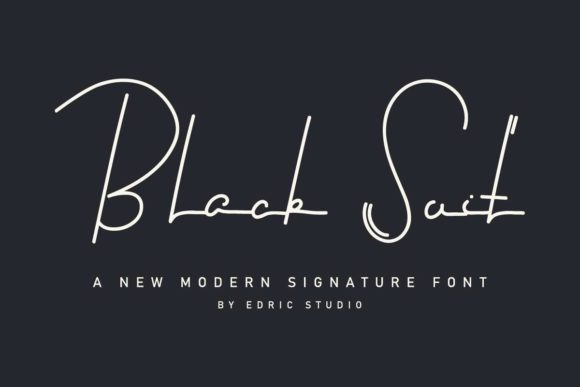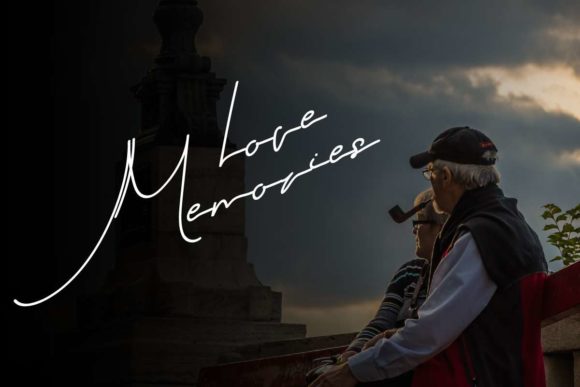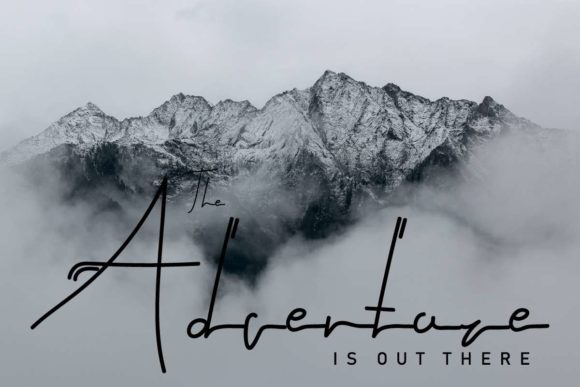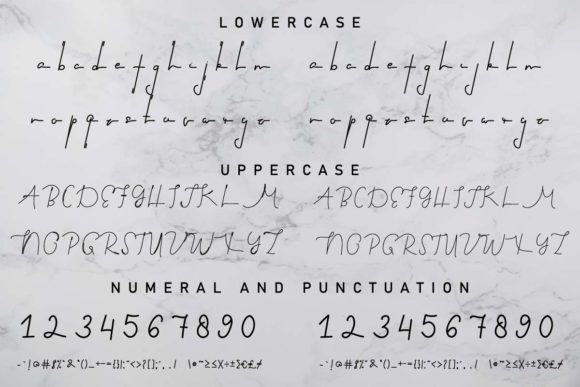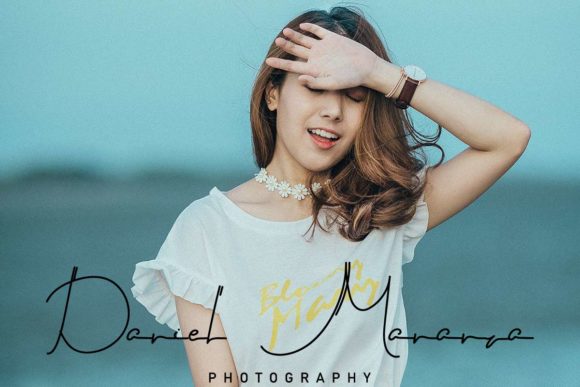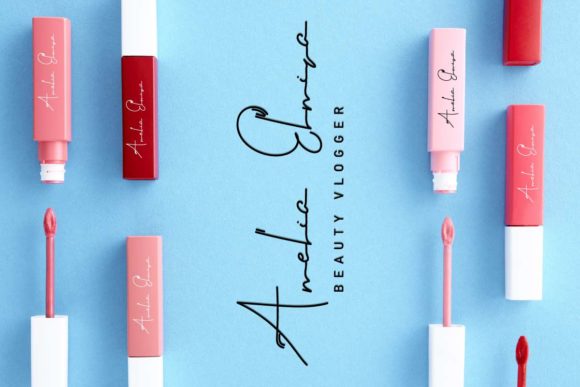
Introducing Black Suit Font: The Epitome of Elegance and Charm
Are you on the hunt for a font that exudes sophistication, elegance, and a touch of classic charm? Look no further than the Black Suit Font. This stunning handwritten font is a stylish homage to traditional calligraphy, making it perfect for designers and crafters seeking to add a touch of luxury to their projects.
The Characteristics of Black Suit Font
Black Suit Font feels equally charming and elegant, thanks to its unique characteristics. Some of the key features that set this font apart include:
- Varying Baseline: The font features a subtle variation in baseline, giving it a natural, handwritten feel that’s both organic and visually appealing.
- Smooth Lines: The lines in Black Suit Font are smooth and fluid, creating a sense of continuity and flow that’s perfect for creating elegant text-based designs.
- Gorgeous Glyphs: The font boasts an impressive array of gorgeous glyphs, each one carefully crafted to add a touch of sophistication to your designs.
- Stunning Alternates: Black Suit Font also features stunning alternates, allowing you to add a touch of personality and whimsy to your text.
What Makes Black Suit Font So Versatile?
One of the things that sets Black Suit Font apart from other fonts is its incredible versatility. Whether you’re working on a wedding invitation, a branding project, or a packaging design, this font is sure to impress. Its elegant, refined aesthetic makes it perfect for:
- Wedding and Event Stationery: Create beautiful wedding invitations, save-the-dates, and other event stationery with Black Suit Font.
- Branding and Packaging: Use the font to create elegant branding materials, such as business cards, letterheads, and packaging designs.
- Signage and Displays: Black Suit Font is also perfect for creating eye-catching signage and displays, whether you’re working on a retail display or a restaurant menu.
Why Designers and Crafters Love Black Suit Font
So, why do designers and crafters love Black Suit Font? Here are just a few reasons:
- Ease of Use: The font is incredibly easy to use, even for those with limited design experience.
- Customization Options: With its stunning alternates and gorgeous glyphs, Black Suit Font offers a range of customization options to help you create unique designs.
Tips for Getting the Most Out of Black Suit Font
To get the most out of Black Suit Font, here are a few tips to keep in mind:
- Experiment with Different Sizes: Don’t be afraid to experiment with different font sizes to create visual interest and hierarchy in your designs.
- Play with Alternates: Take advantage of the font’s stunning alternates to add personality and whimsy to your text.
- Pair with Other Fonts: Black Suit Font pairs beautifully with other fonts, so don’t be afraid to experiment with different combinations to create unique and interesting designs.
In conclusion, Black Suit Font is a truly exceptional font that’s sure to impress designers and crafters alike. With its elegant aesthetic, versatile design, and range of customization options, it’s the perfect choice for anyone looking to add a touch of sophistication to their projects. So why wait? Download Black Suit Font today and start creating stunning designs that exude charm and elegance.